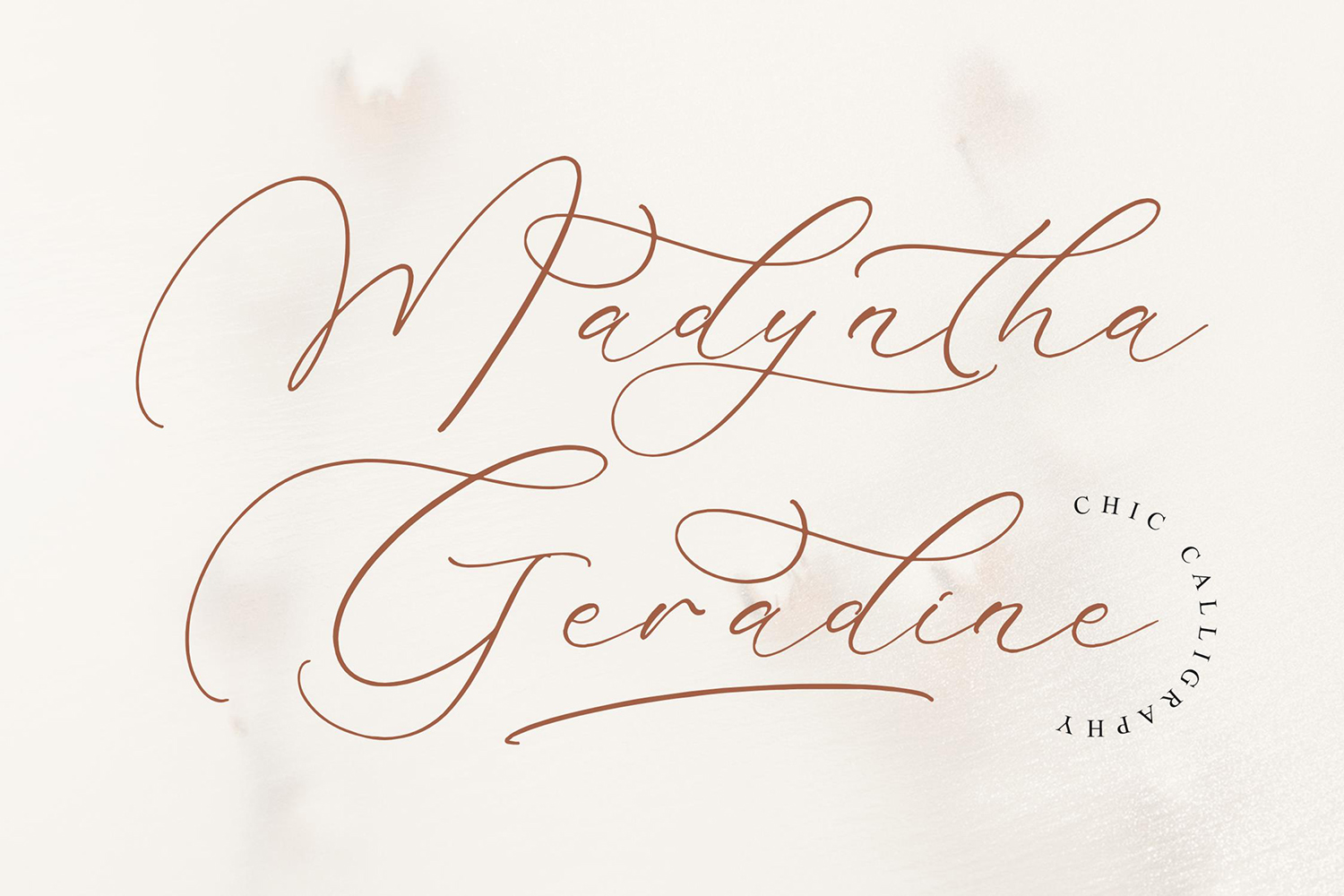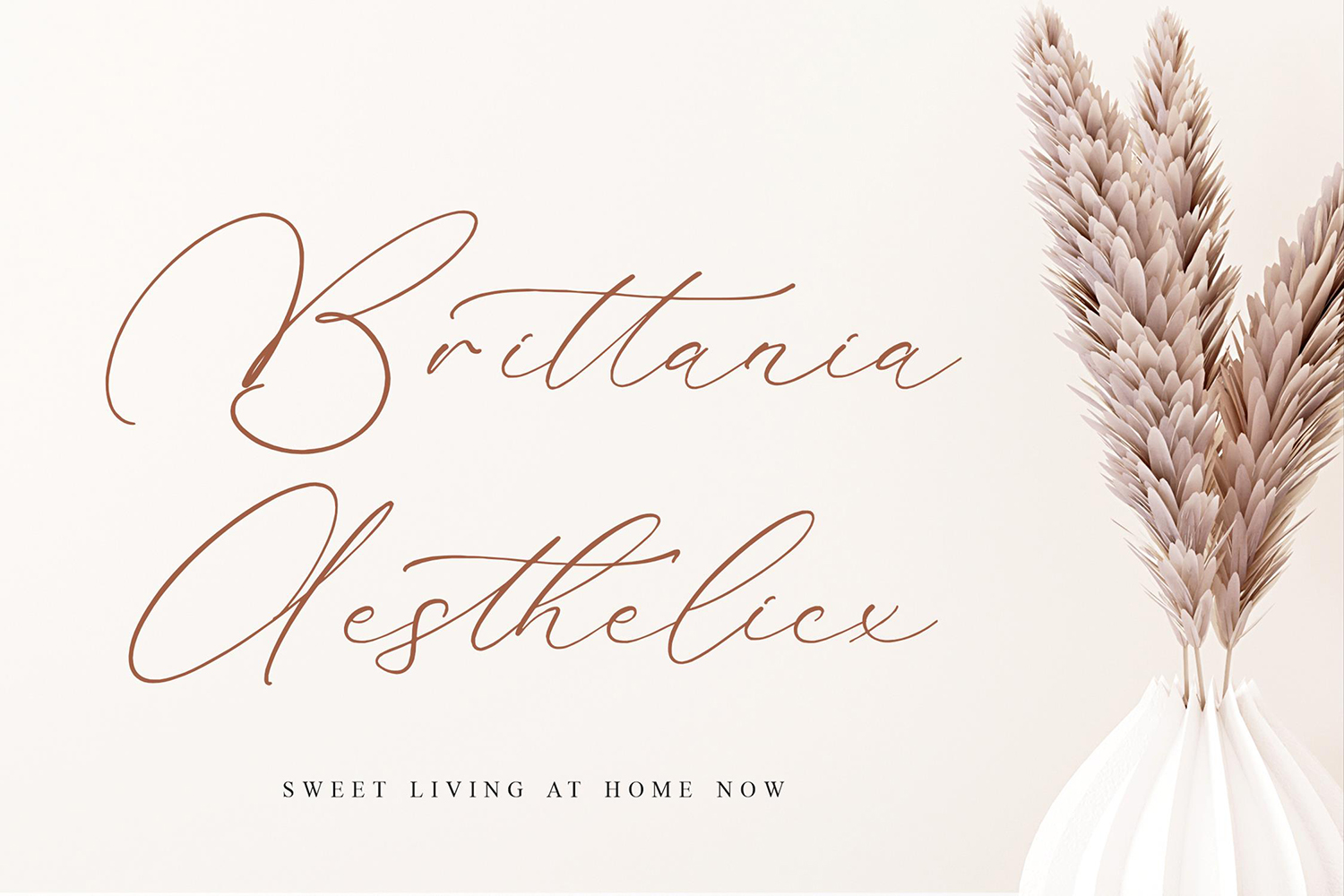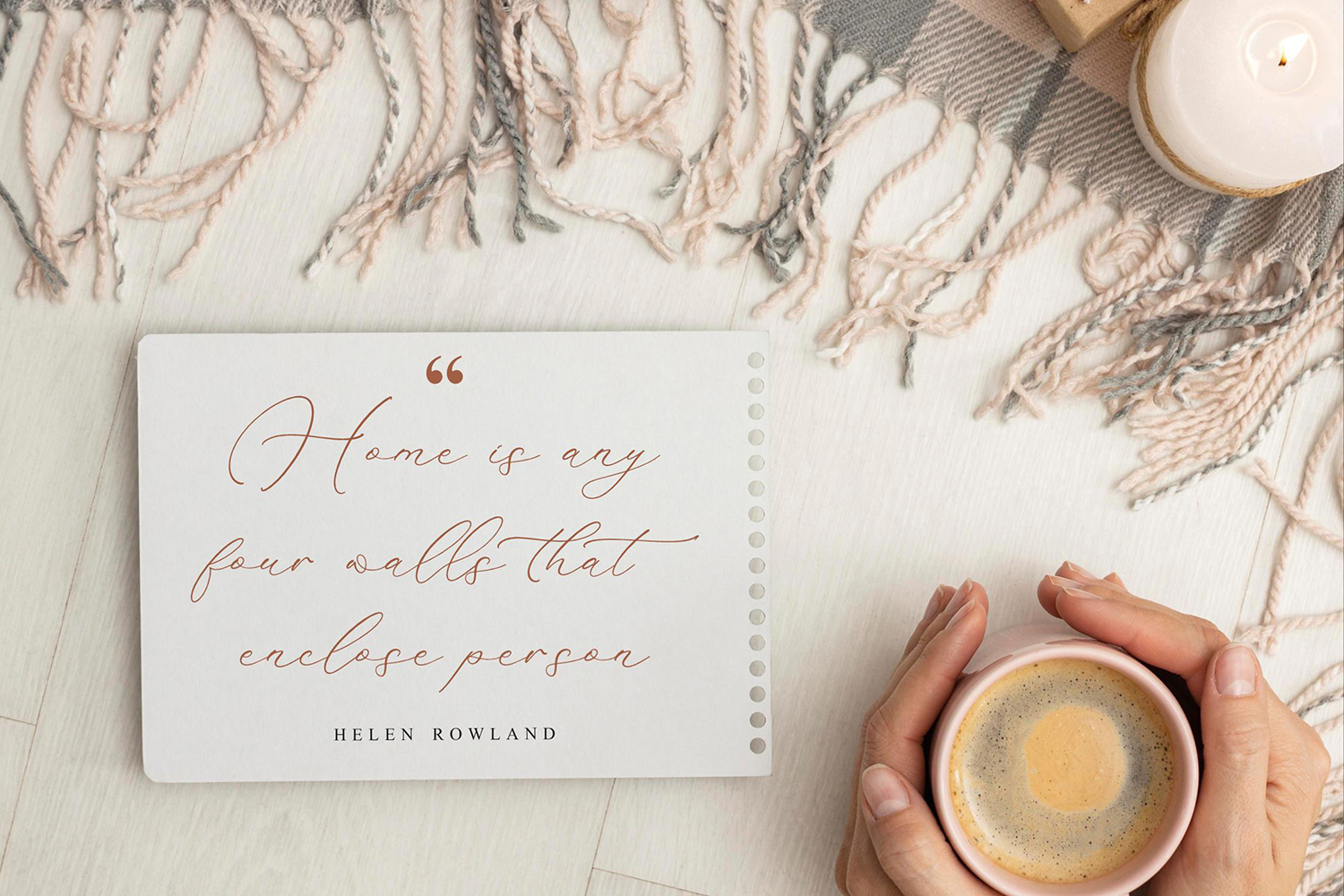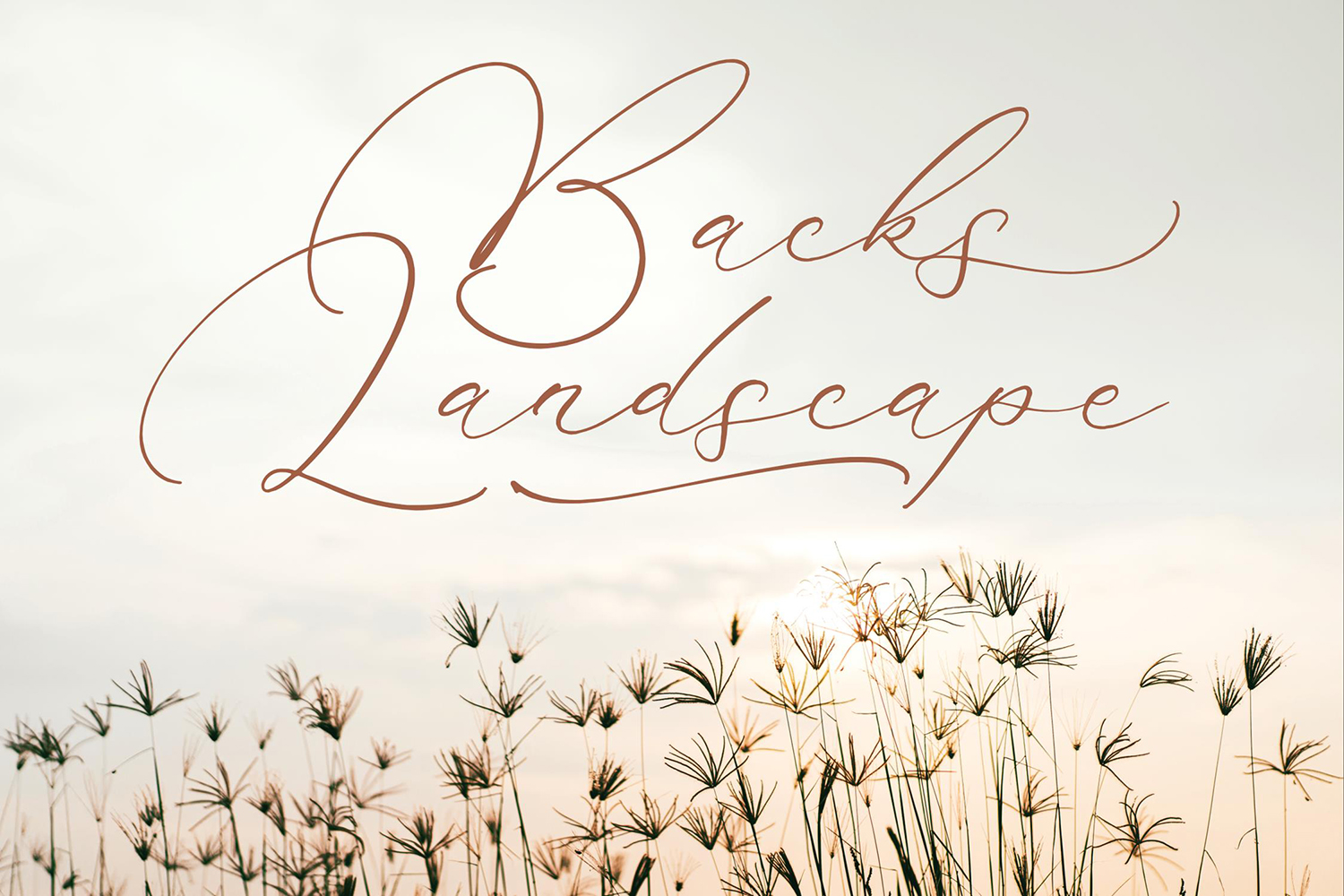
Madyntha Geradine Free Font
Madyntha Geradine Free Font is a chic calligraphy. This luxury script has its own unique style & modern look. This typeface is perfect for an elegant & luxury logo, book or movie title design, fashion brand, magazine, clothes, lettering, quotes, and so much more.